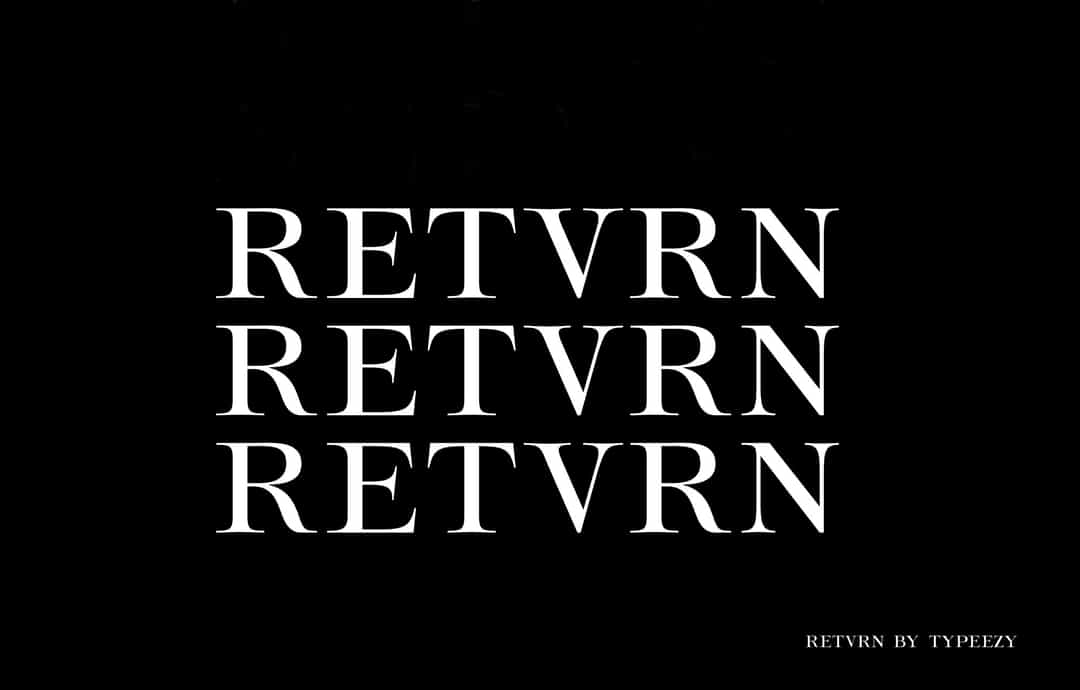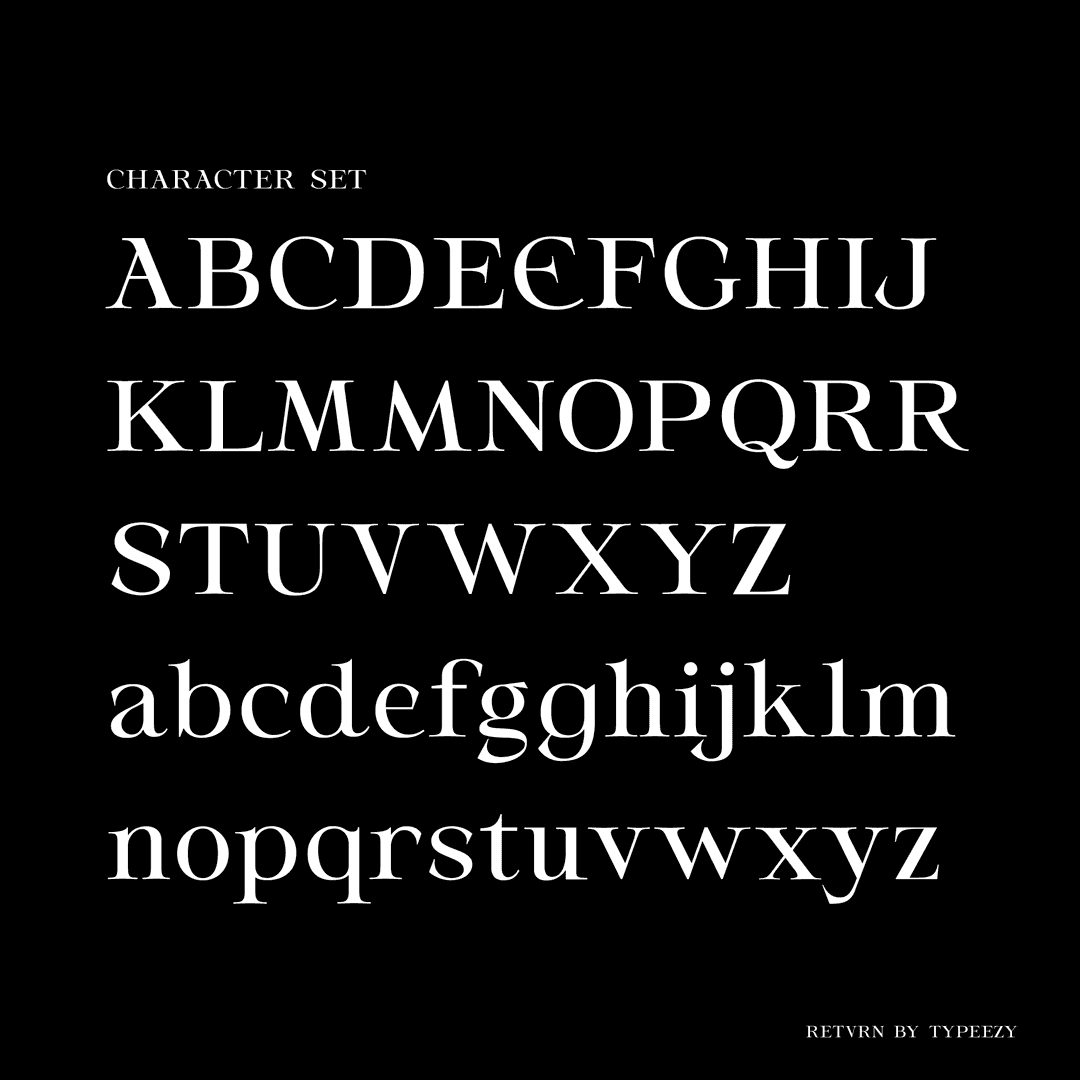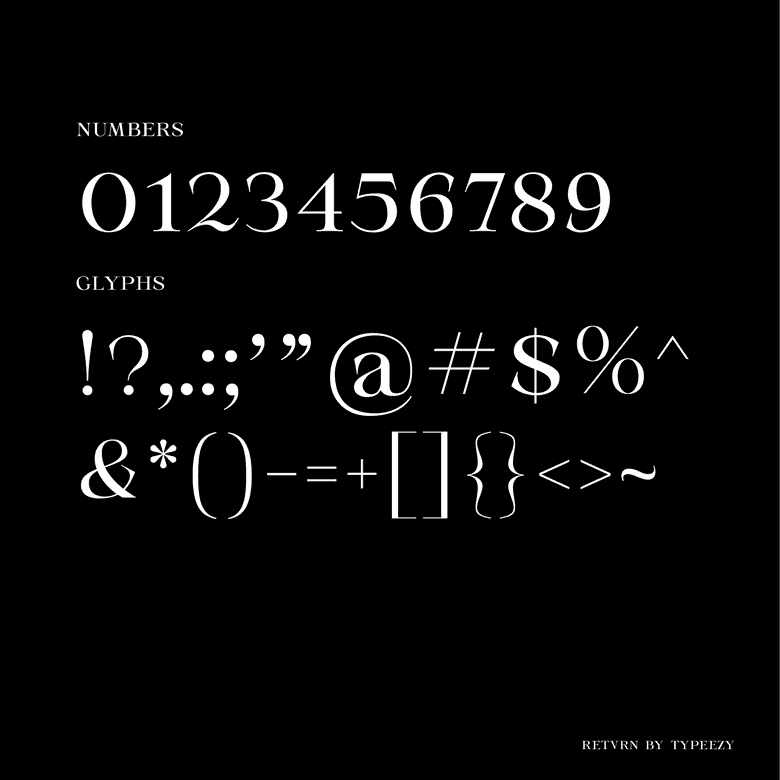
Retvrn is a luxurious serif typeface featuring sturdy curvatures and solid lines which give this font its strength and standout qualities. Perfect for vintage or modern design branding projects such as creating wedding invitations, advertising vintage mood boards packaging logotypes titles as well editorial designs. Additionally, Retvrn can also be used in editorial designs and many other fields.